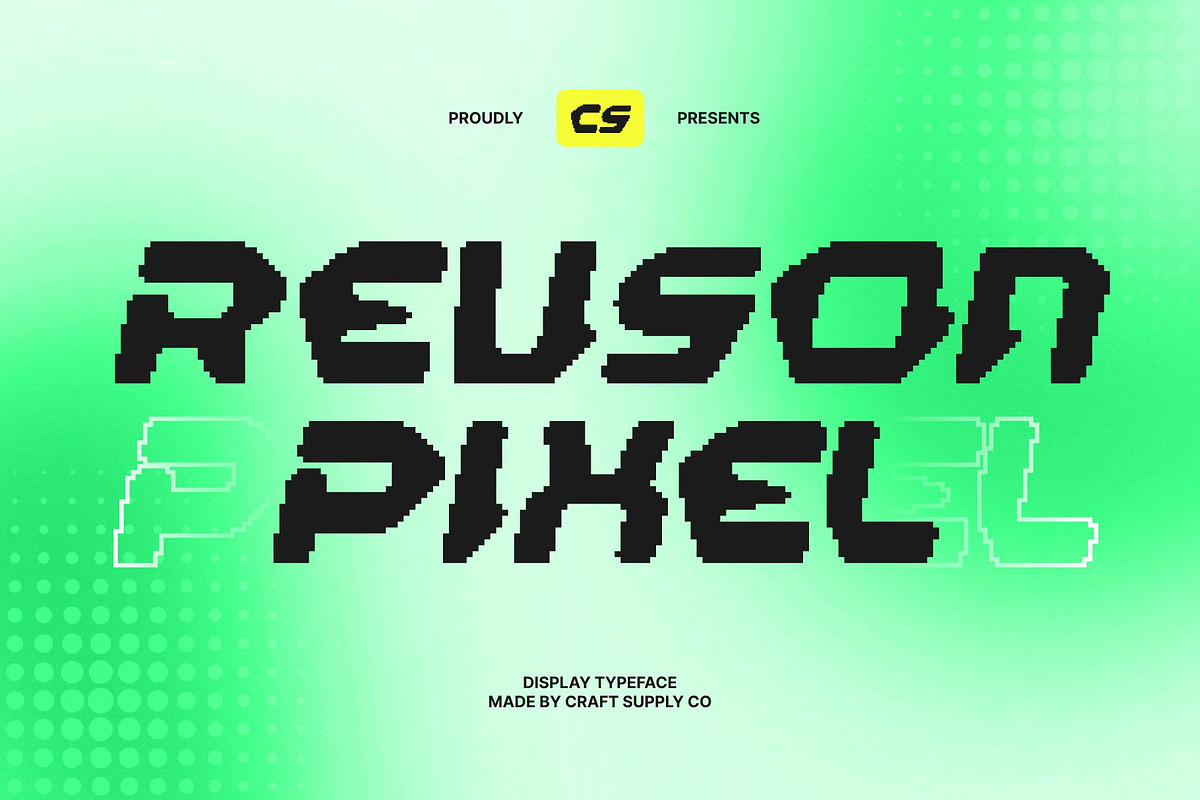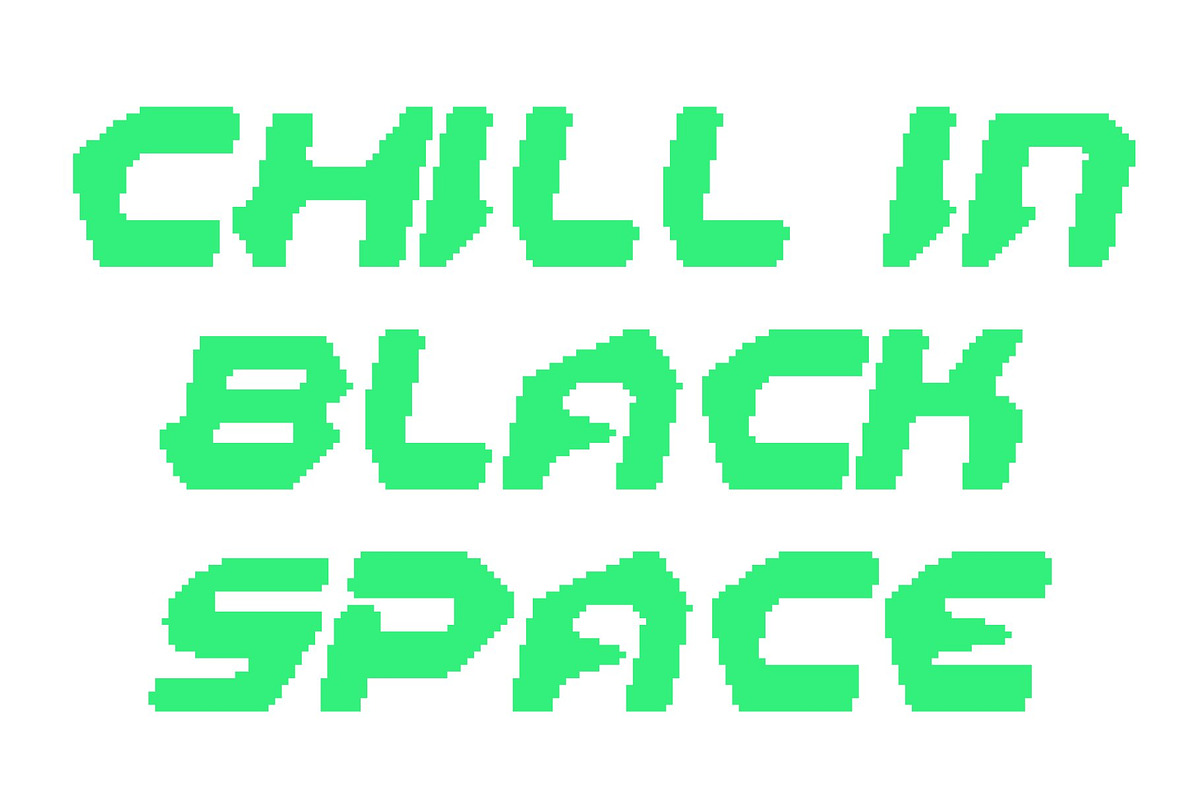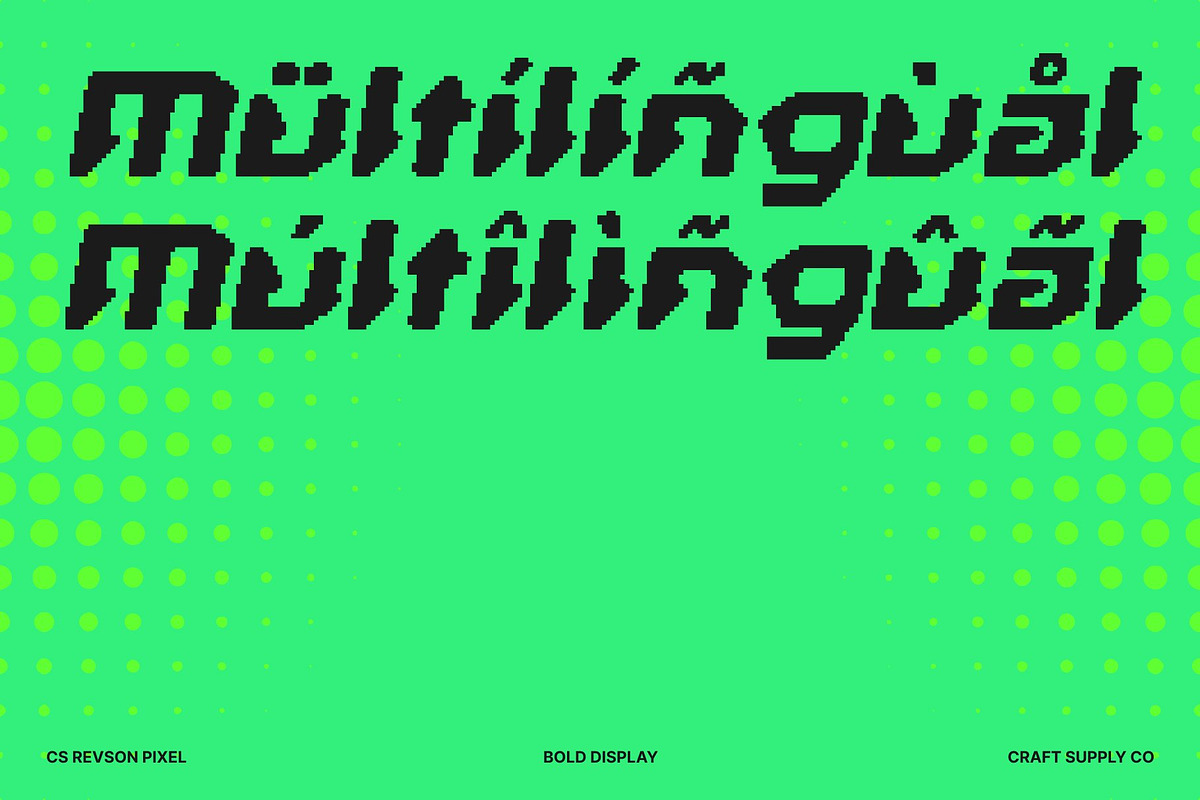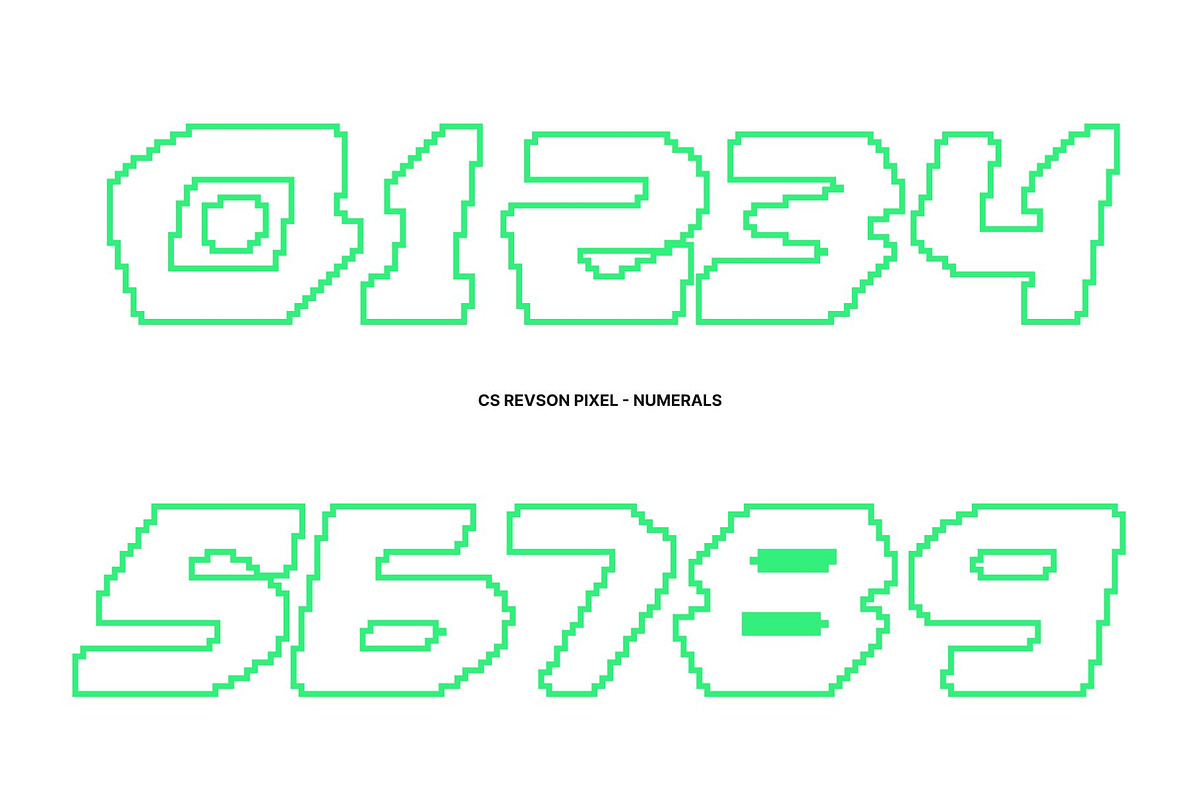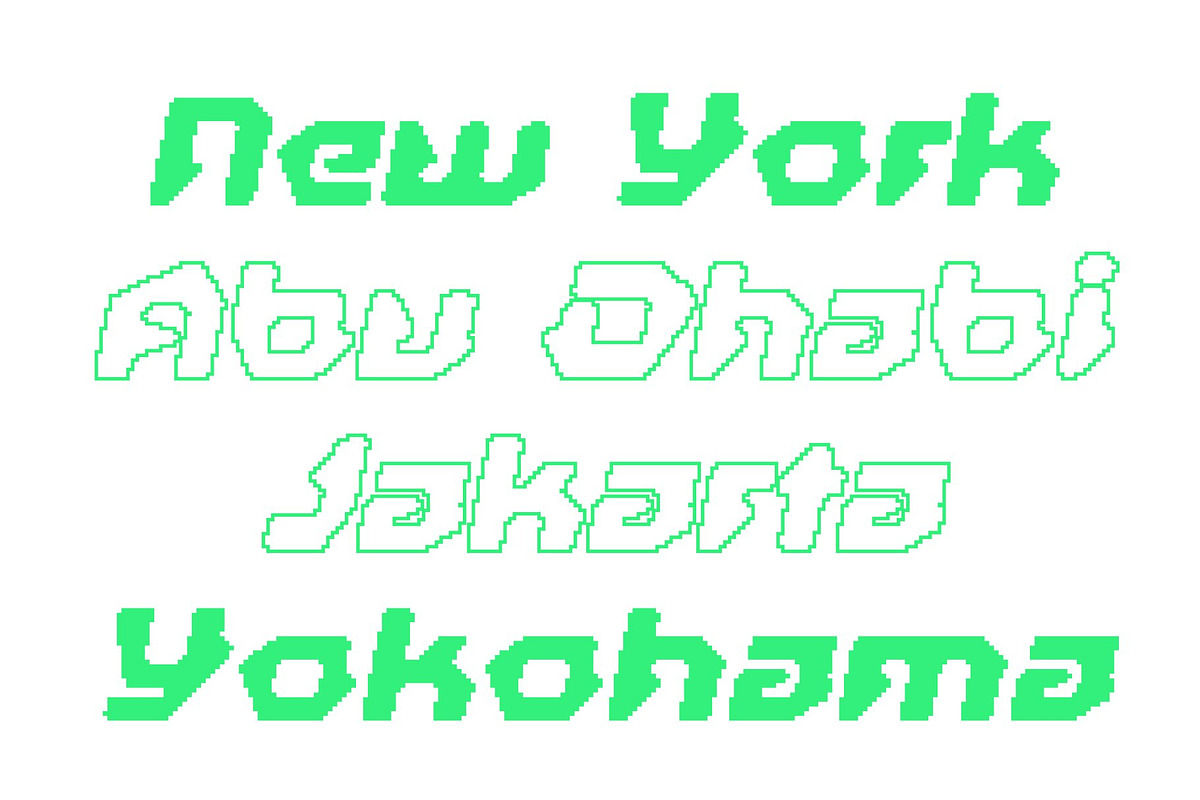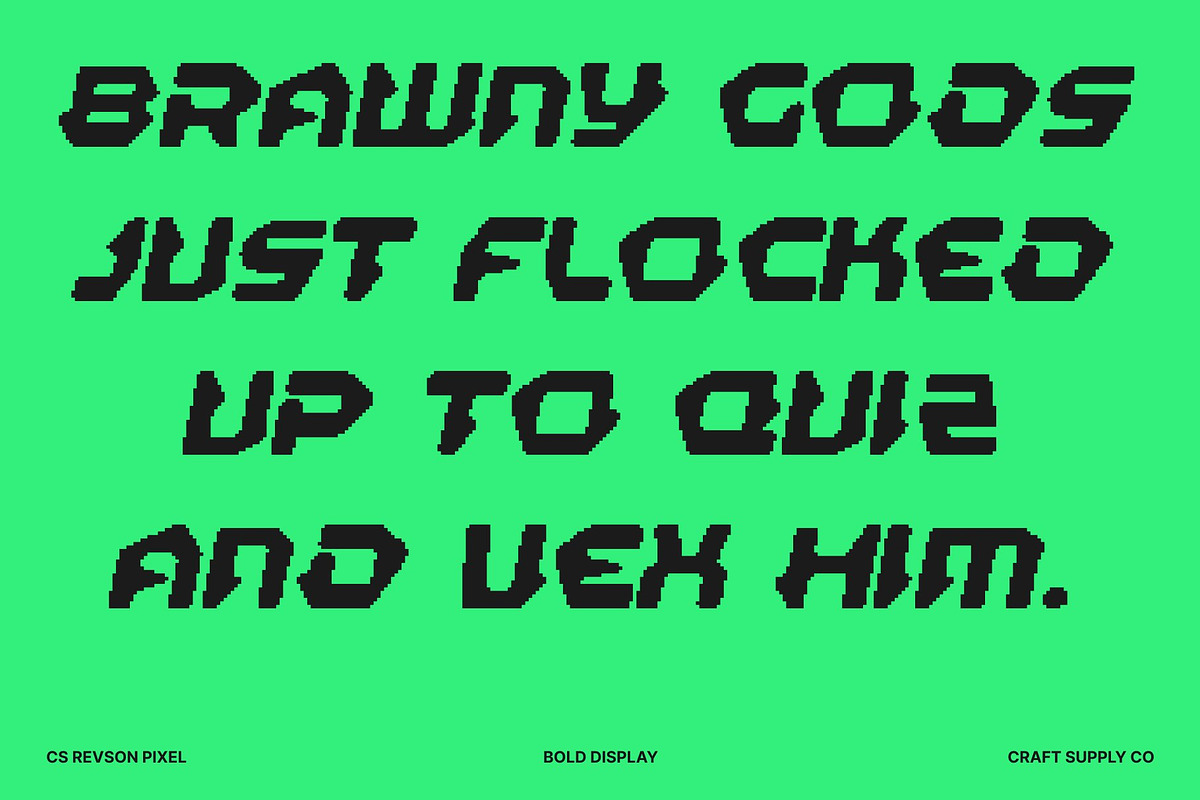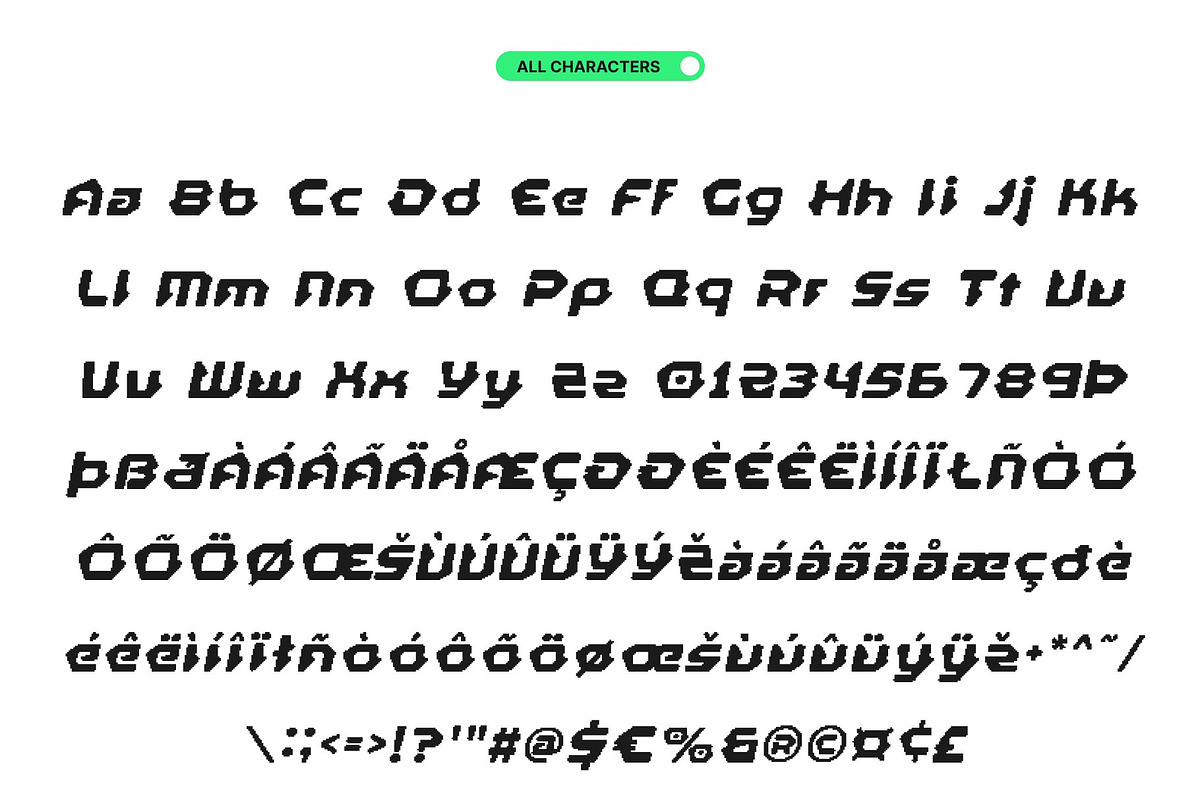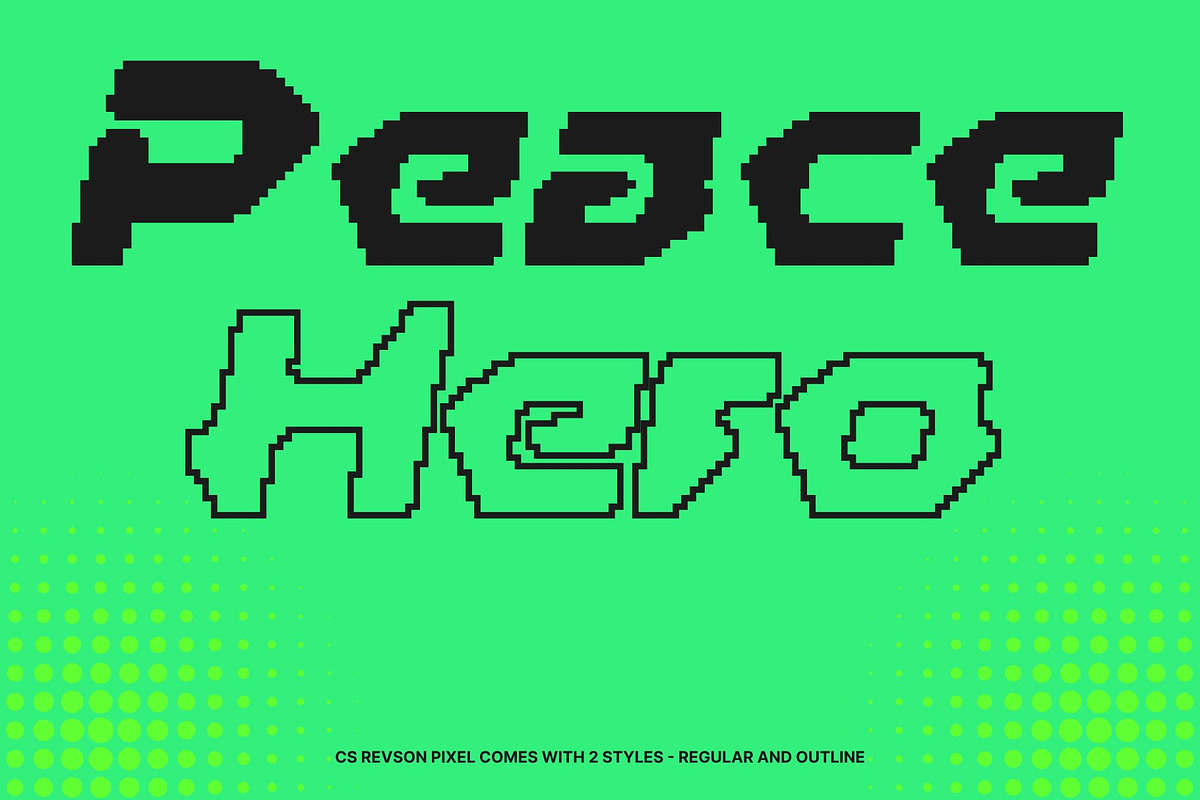
CS Revson Pixel
CS Revson Pixel – Futuristic Display Font with Techno Edge
Bold Futuristic Display with Pixel Precision This is a futuristic display font built to command attention through bold structure and pixel-driven design. Its strong letterforms and digital construction create an assertive visual impact, making it ideal for projects that demand a forward-thinking, high-energy presence.
Techno Geometry with Digital Character Defined by sharp edges, clean lines, and pixel-based geometry, this font delivers a distinctly techno aesthetic. The structured forms evoke sci-fi interfaces and futuristic systems, balancing striking visual power with clear readability. This precise construction gives the font a modern, technological edge that feels immersive and intentional.
Designed for Games, Tech Branding, and Sci-Fi Visuals From futuristic game titles and esports graphics to high-tech branding and digital interfaces, this font excels in bold applications. Its powerful form makes it perfect for logos, posters, book covers, UI elements, and promotional artwork that require a strong dystopian or cyber-inspired identity.
A Typeface Built for the Future This font is more than a display font it’s a visual statement of innovation and imagination. With its pixel precision and futuristic tone, it adapts seamlessly across digital and print media. For designers exploring technology, science fiction, cyberpunk, or futuristic worlds, this font delivers a confident and visionary typographic voice.